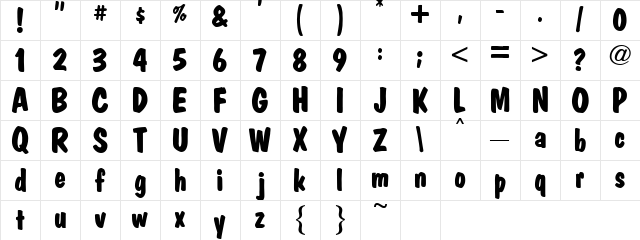
MktBold Plain: Plain: Font Preview
MktBold Plain: Plain:
MktBold Plain: Plain: Font Details
| Style | Plain: |
Design Context for MktBold Plain: Typeface
MktBold Plain: offers clean, dependable letterforms without strong stylistic allegiance, making it a practical choice for designers who need flexibility. Its bold stroke weight gives it real presence on the page.